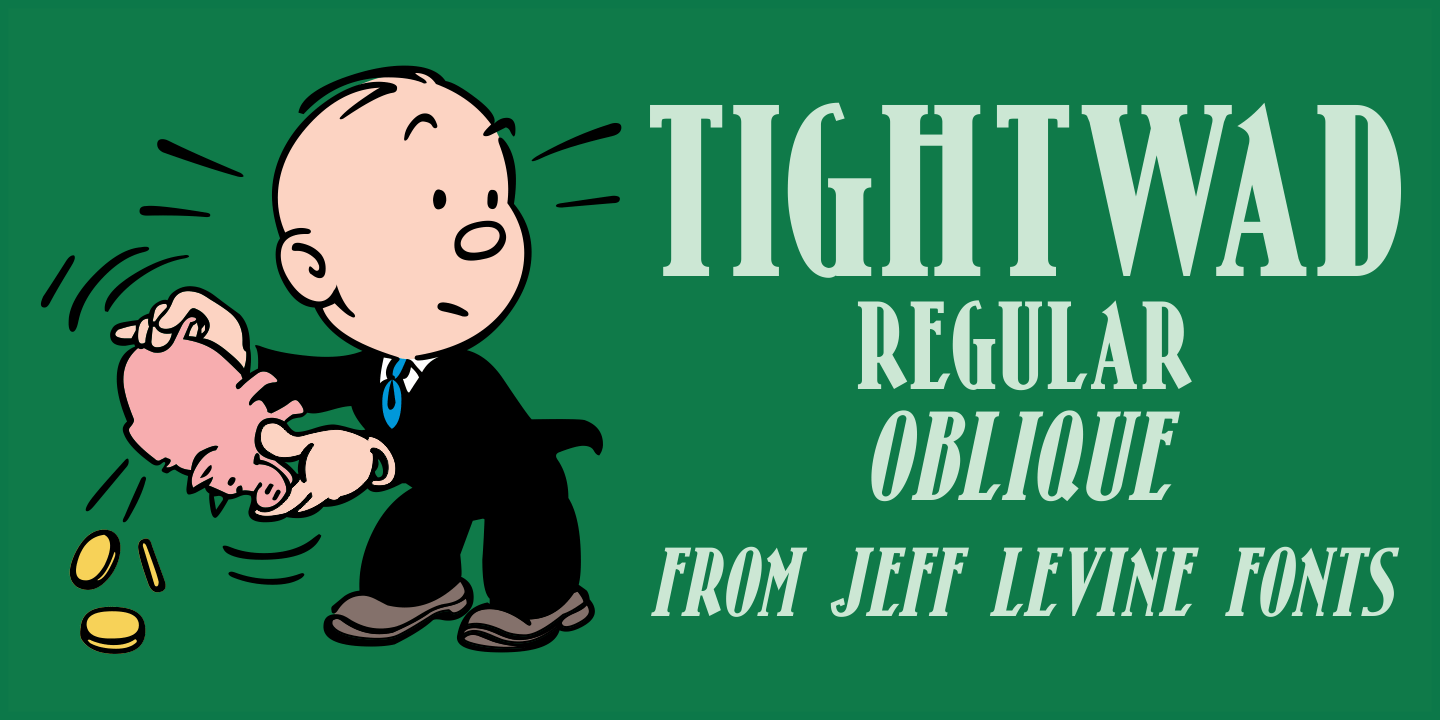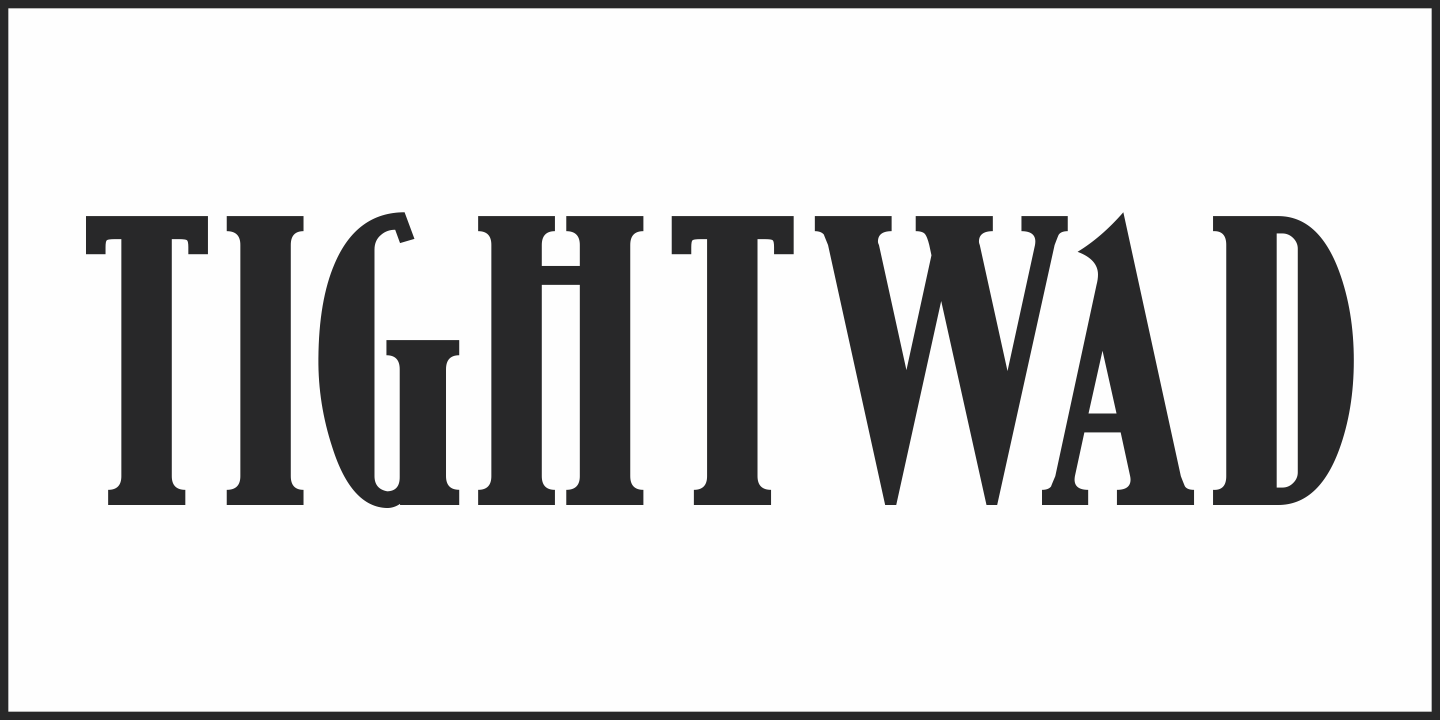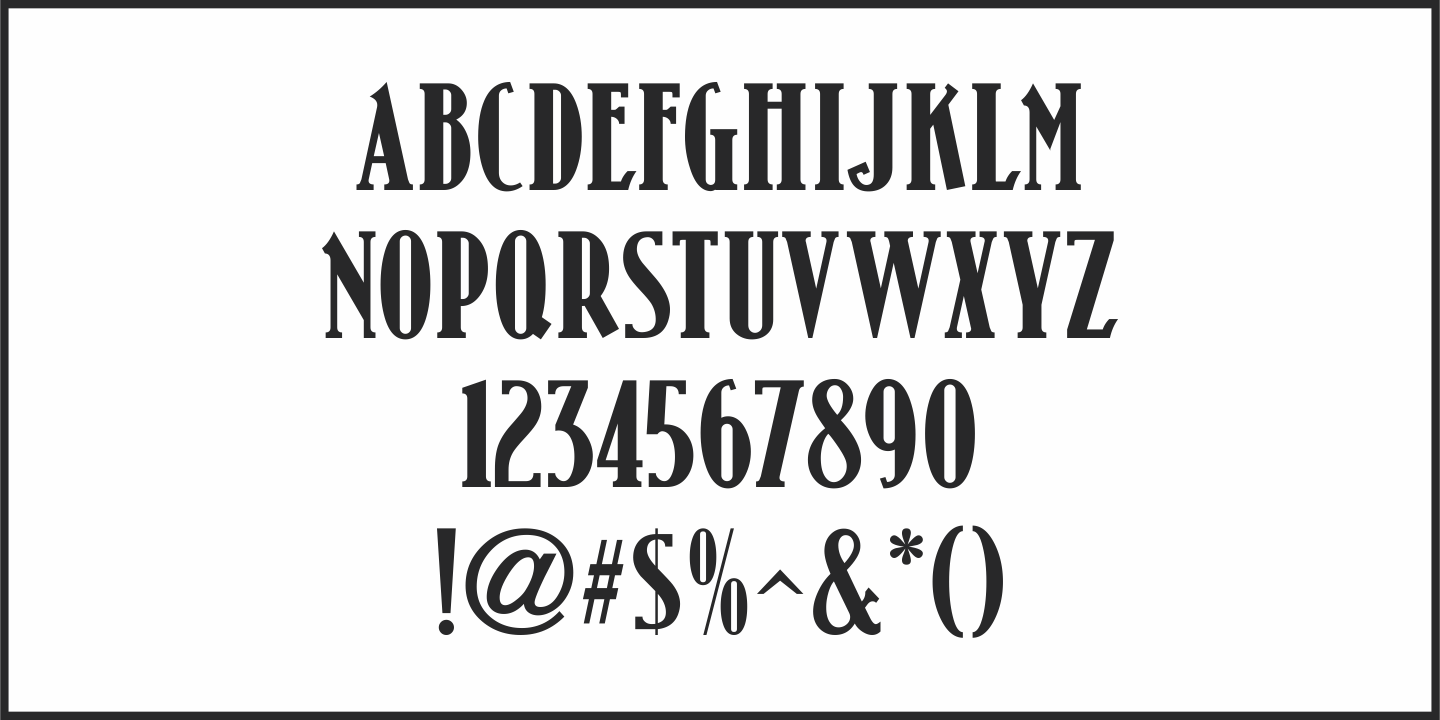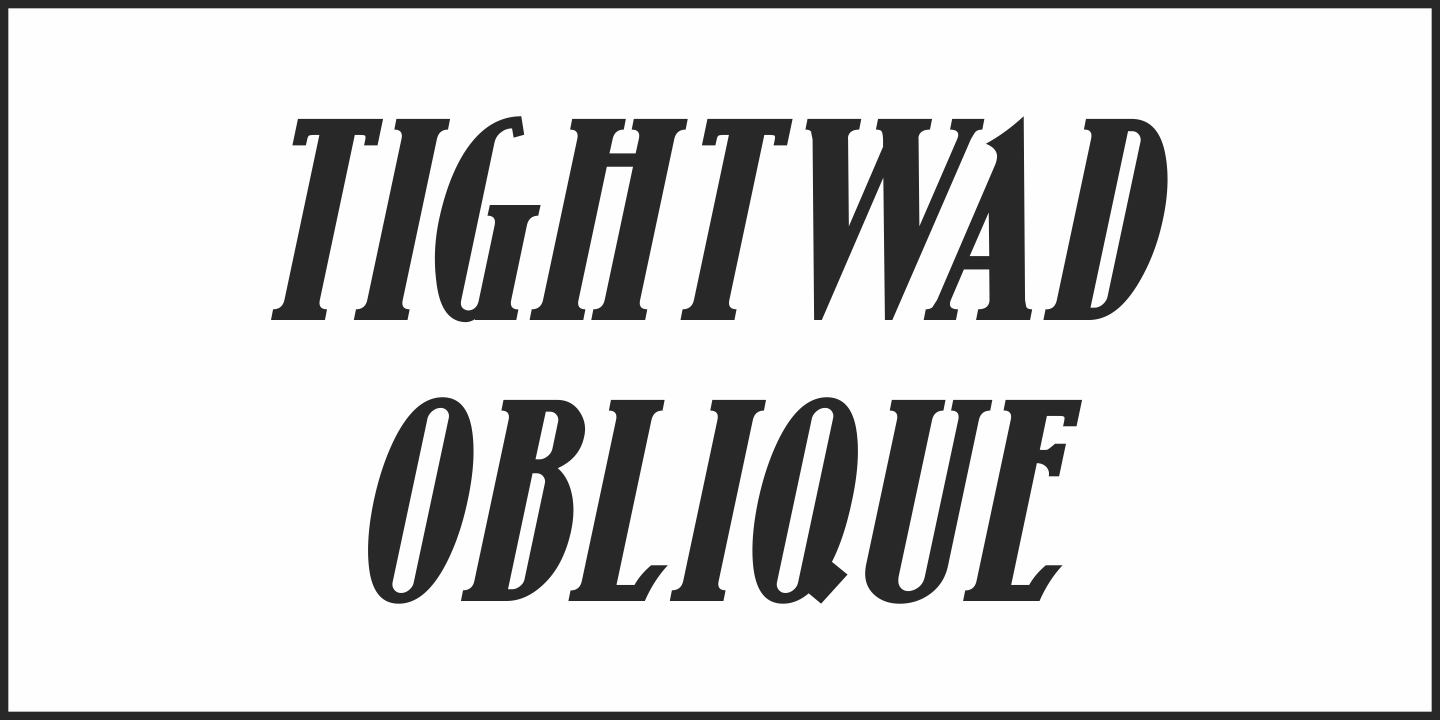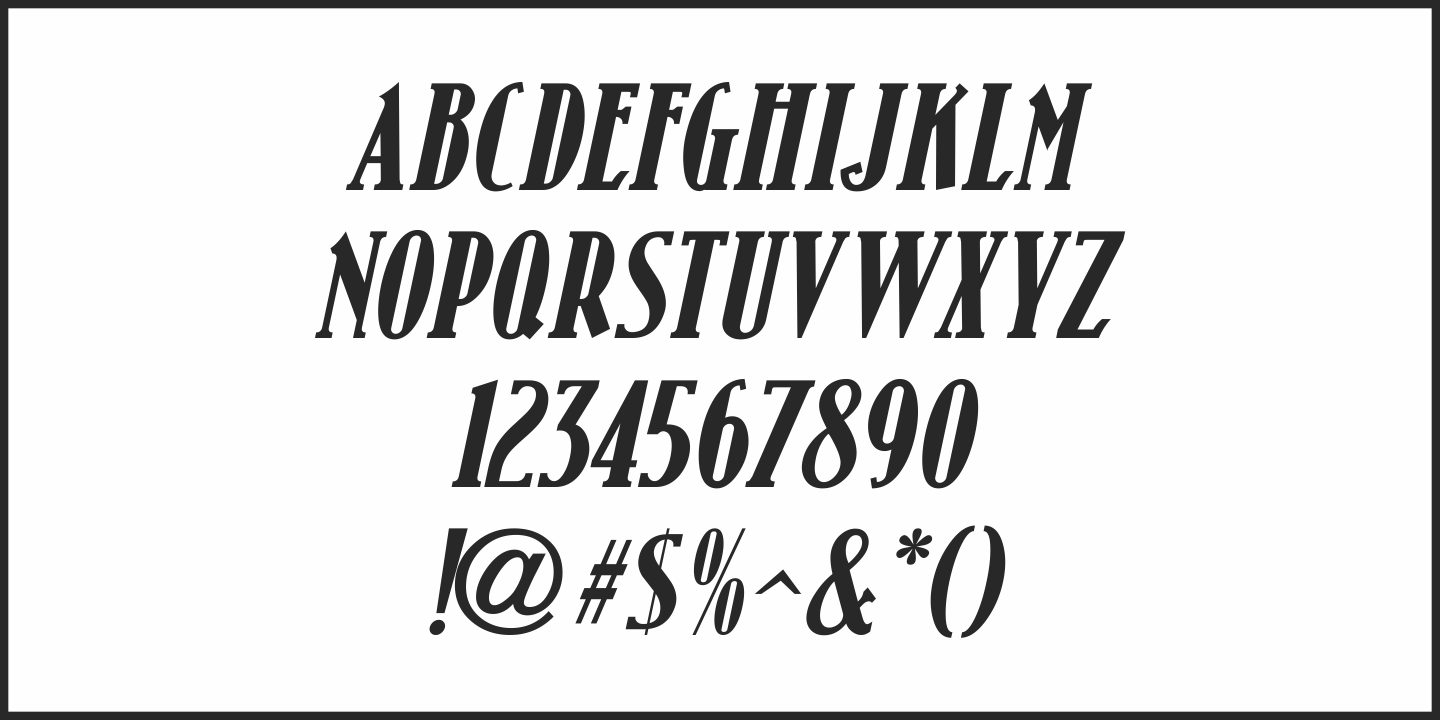
Tightwad
“I Don't like No Cheap Man” is a piece of early 1900s sheet music featuring its title hand lettered in a condensed slab serif design.
The influences of the Art Nouveau era are clearly found in the many eccentric character shapes within the various letters of the original artwork.
Recreated in digital type, Tightwad JNL is available in both regular and oblique versions – and its font name is a variant of the “Cheap Man” portion of the song’s title.